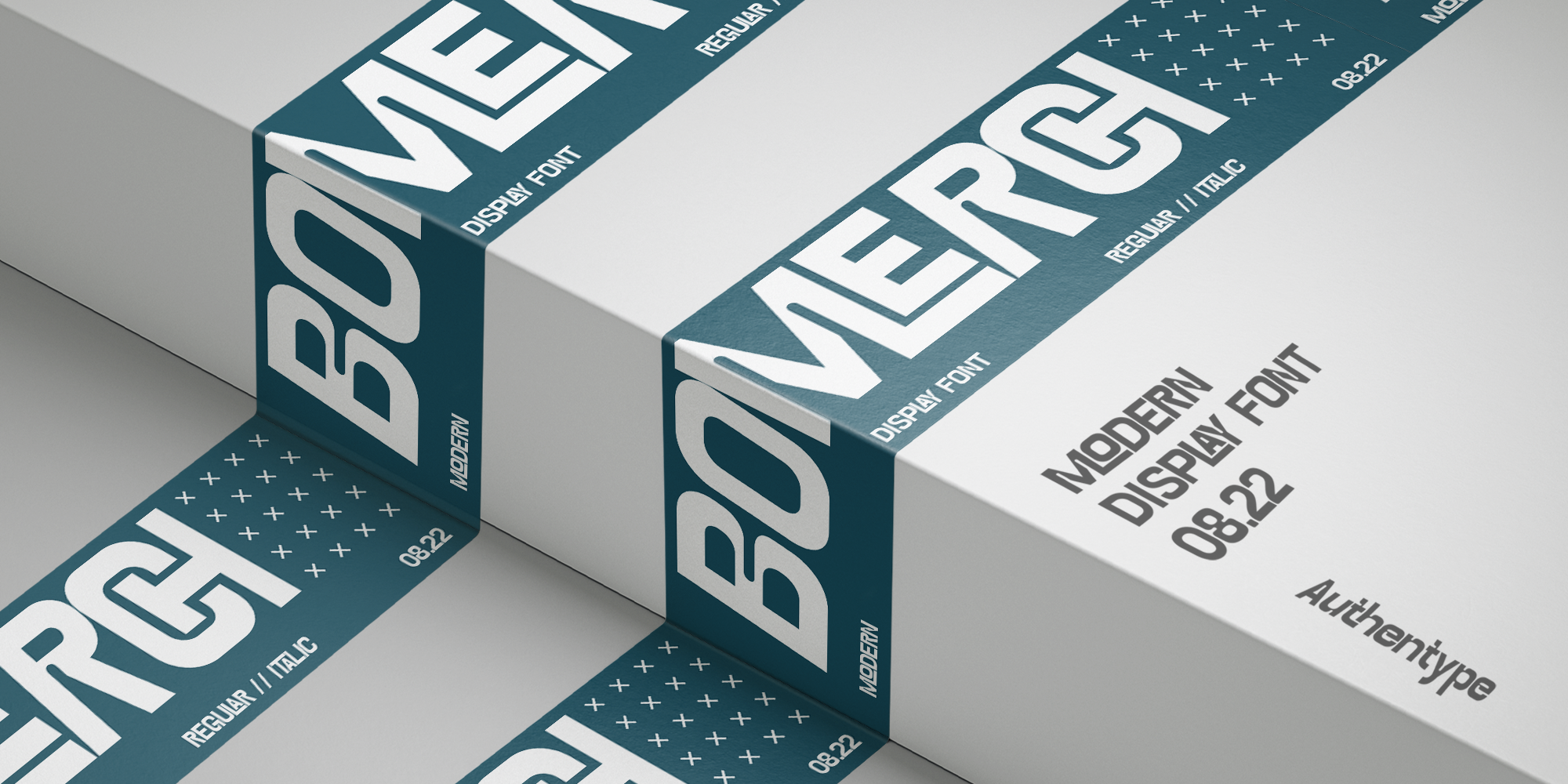
Bomerch Font is perfect for explosive marketing campaigns, dynamic action movie titles, high-energy sports branding, powerful automotive advertising, intense gaming interfaces, adrenaline-fueled event promotions, bold streetwear designs, and commanding industrial equipment signage.
This font is exciting because it embodies explosive energy with commanding force and industrial strength sophistication. Bomerch Font features bold, impact-driven letterforms with powerful angles that capture the essence of unstoppable force and mechanical precision, making it ideal for projects that require maximum impact and authentic industrial character.
The Bomerch Font family includes regular, heavy, condensed, and impact variants, along with explosive alternates and industrial ligatures that enhance its powerful character. Each weight maintains the font's commanding aesthetic while providing different levels of explosive expression for various high-energy and industrial design applications.
Whether you're developing powerful action brands, creating compelling high-energy materials, or designing explosive marketing campaigns, Bomerch Font Free Download delivers exceptional force and industrial appeal. Its distinctive explosive style makes it an excellent choice for designers seeking to add genuine power and mechanical sophistication to their projects. The font's versatility extends from action sports branding to industrial equipment signage, ensuring consistent performance across all high-impact applications. With its powerfully crafted letterforms and industrial proportions, this typeface provides professional results that energize audiences and establish dominant brand presence with its unmistakable explosive character and commanding industrial elegance.